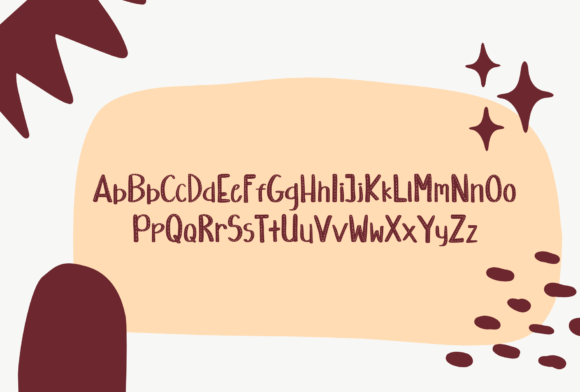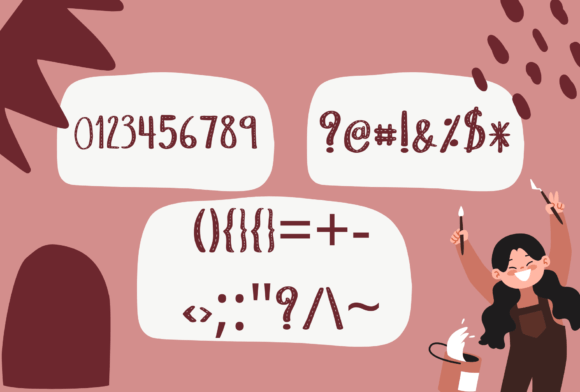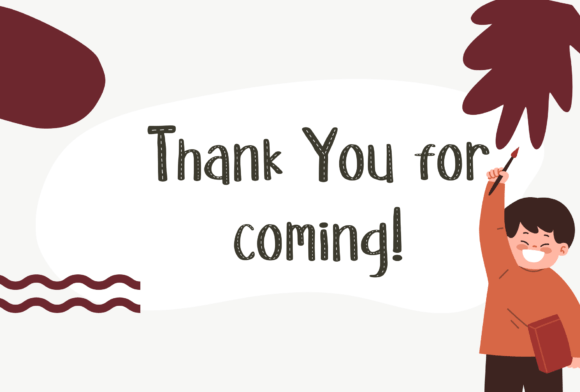
The Perfect Match: Boy and Girl Font for Your Next Design Project
Have you ever sat down with a blank sheet of paper, pen in hand, and a spark of creativity in your mind, only to be overwhelmed by the endless possibilities? This is the moment when the perfect font can make all the difference. For designers seeking a personalized touch, the Boy and Girl Font is a hidden gem that can elevate any design project.
This adorable handwritten display font is designed to add a touch of whimsy and romance to your creations. From wedding invitations to thank you cards, and even logos, the Boy and Girl Font is the perfect match for designers looking to add a unique and playful twist to their work. Its value lies in its versatility and ability to convey a sense of personality and style, making it a valuable asset for any designer’s toolkit.
Boy and Girl Font Key Features
- Unique Characteristics: The Boy and Girl Font features a unique, hand-drawn style with bold lines and playful details, making it perfect for children’s books, educational materials, and creative projects.
- Character Set: The font includes a comprehensive character set, including uppercase and lowercase letters, numbers, punctuation marks, and special characters.
Boy and Girl Font Review
I recently had the chance to work with the Boy and Girl Font, and I must say it’s an interesting addition to any design project. Here’s my honest review.
- The playful, hand-drawn feel of the font adds a touch of whimsy and personality to any text.
- The bold and cursive variations provide a nice contrast, making it suitable for a wide range of design applications.
- The font is available in multiple weights, which is a plus for designers who need more flexibility in their projects.
- The font may not be suitable for formal or professional designs, as its playful feel may come across as unprofessional.
- The bold variation can be a bit too loud and overpowering in certain contexts.
- The font may not be optimized for smaller text sizes, which can result in readability issues.
Overall, I think the Boy and Girl Font is a fun and creative option for designers who want to add some personality to their work. However, it may not be the best choice for every project, and designers should carefully consider the context and intended audience before using it.
Tips: Use the Boy and Girl Font to add a playful touch to your designs, such as invitations, social media graphics, or posters.
Tips: Use the Boy and Girl Font to add a whimsical touch to your illustrations or graphics.
Tips: Use the Boy and Girl Font to add a playful touch to your presentations or documents.
The Boy and Girl Font is ideal for:
– Children’s party invitations
– Social media graphics for kids’ products or services
– Educational materials for children
– Whimsical illustrations or graphics